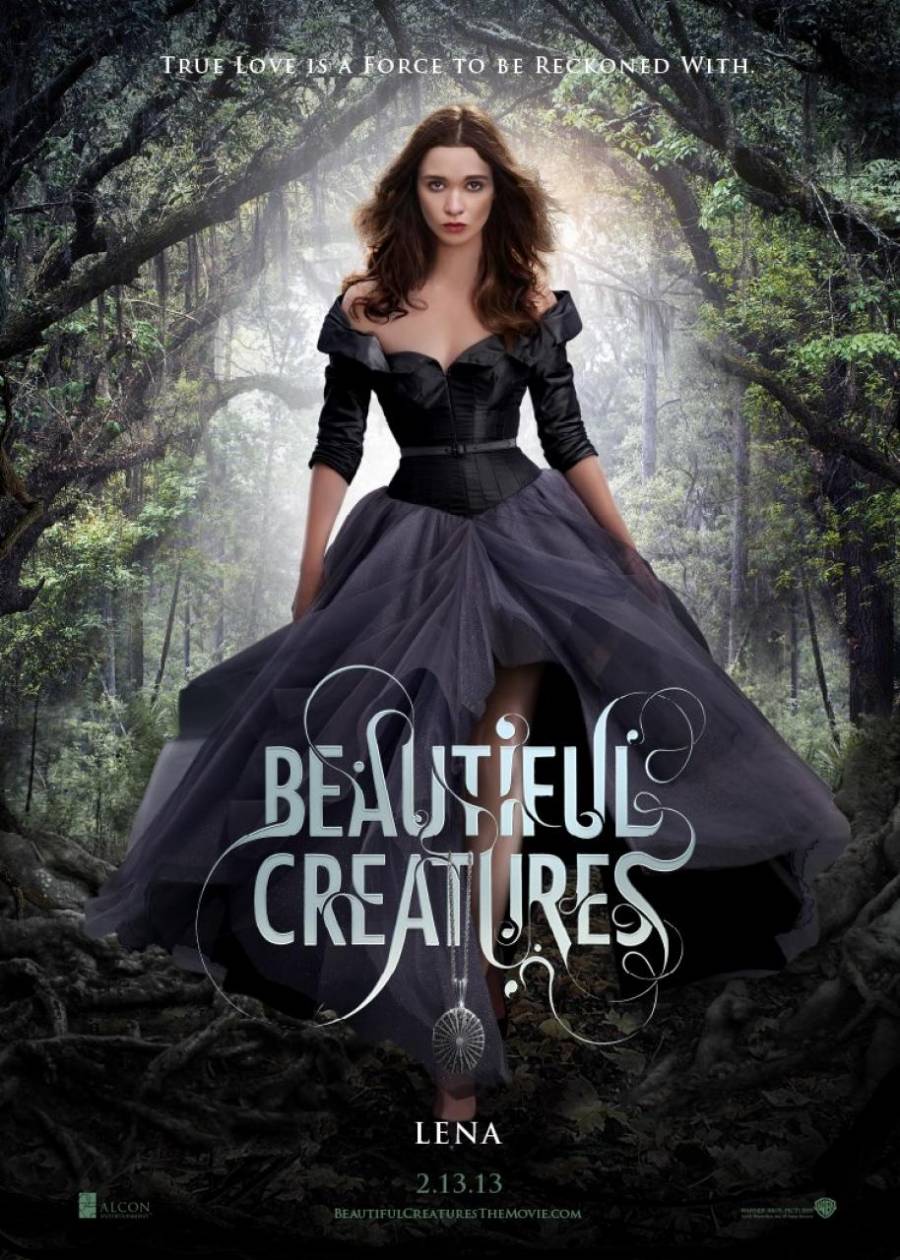
Beautiful Creatures Font
This movie poster for Beautiful Creatures showcases the lettering designed by renowned British artist Si Scott, which is believed to be inspired by the classic typeface Futura Condensed, created by Paul Renner in 1927. For more information on Futura Condensed, please click [here](https://www.myfonts.com/collections/futura-nv-font-linotype.